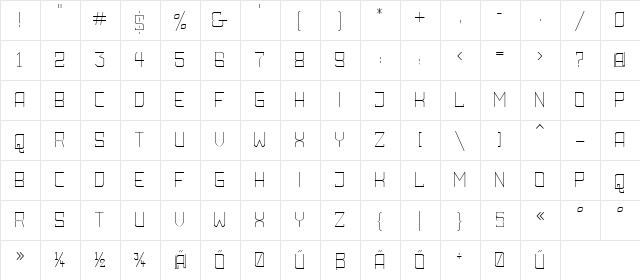
Amboss Condensed ExtraLight
Style: Condensed ExtraLight
Amboss Family
Amboss Condensed ExtraLight
Complete Amboss Condensed ExtraLight glyph index. Displaying only characters natively supported by Amboss Condensed ExtraLight font.
Design Context for Amboss
Amboss is a composed and adaptable typeface that performs quietly and consistently across a wide range of design contexts. Its slender proportions lend an understated elegance to any composition. Its narrow stance lets it pack a punch even in space-constrained designs.